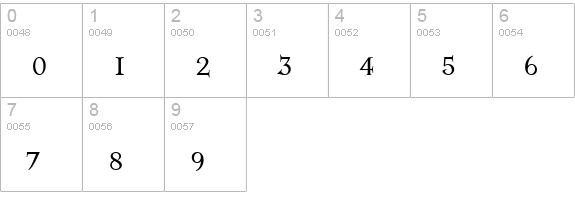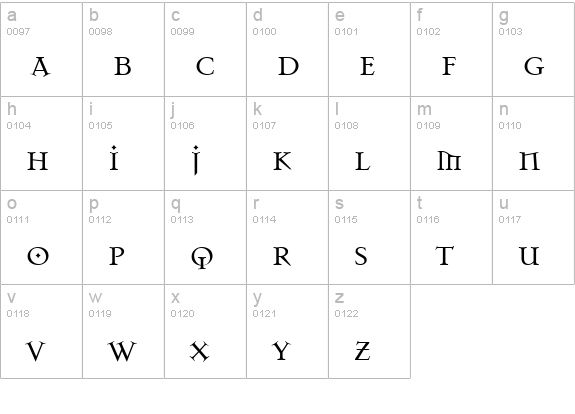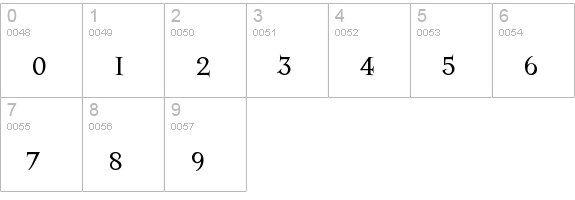
MasonAlternate Regular Font Details
MasonAlternate Regular is the standard, neutral variant in the MasonAlternate typeface family \xE2\x80\x94 well suited to general body text, paragraphs, and standard typographic work.
MasonAlternate Regular font exudes a captivating elegance that is sure to elevate any design project. With its sleek and modern lines, this typeface effortlessly combines sophistication and versatility, making it a perfect choice for various applications. The MasonAlternate Regular font offers a unique twist on traditional letterforms, with subtle yet distinctive alternates that add a touch of playfulness to your designs. Its balanced proportions and clean, crisp lines ensure readability at any size, making it equally suitable for both body text and headlines. This font is freely available to download at FontsMarket.com, providing designers and creatives with convenient access to this exceptional typeface. Whether you're working on a branding project, editorial layout, or website design, MasonAlternate Regular font will undoubtedly leave a lasting impression. Its extensive character set includes uppercase and lowercase letters, numbers, punctuation marks, and special characters, allowing for seamless integration into any project. The versatility of this typeface shines through in its ability to adapt to various design styles, from minimalistic and contemporary to bold and expressive. No matter the project or aesthetic vision, MasonAlternate Regular font offers a reliable and visually striking solution. Its timeless appeal and wide range of applications make it a must-have for any designer's toolkit. Download it for free at FontsMarket.com and let your creativity soar with this exceptional font.